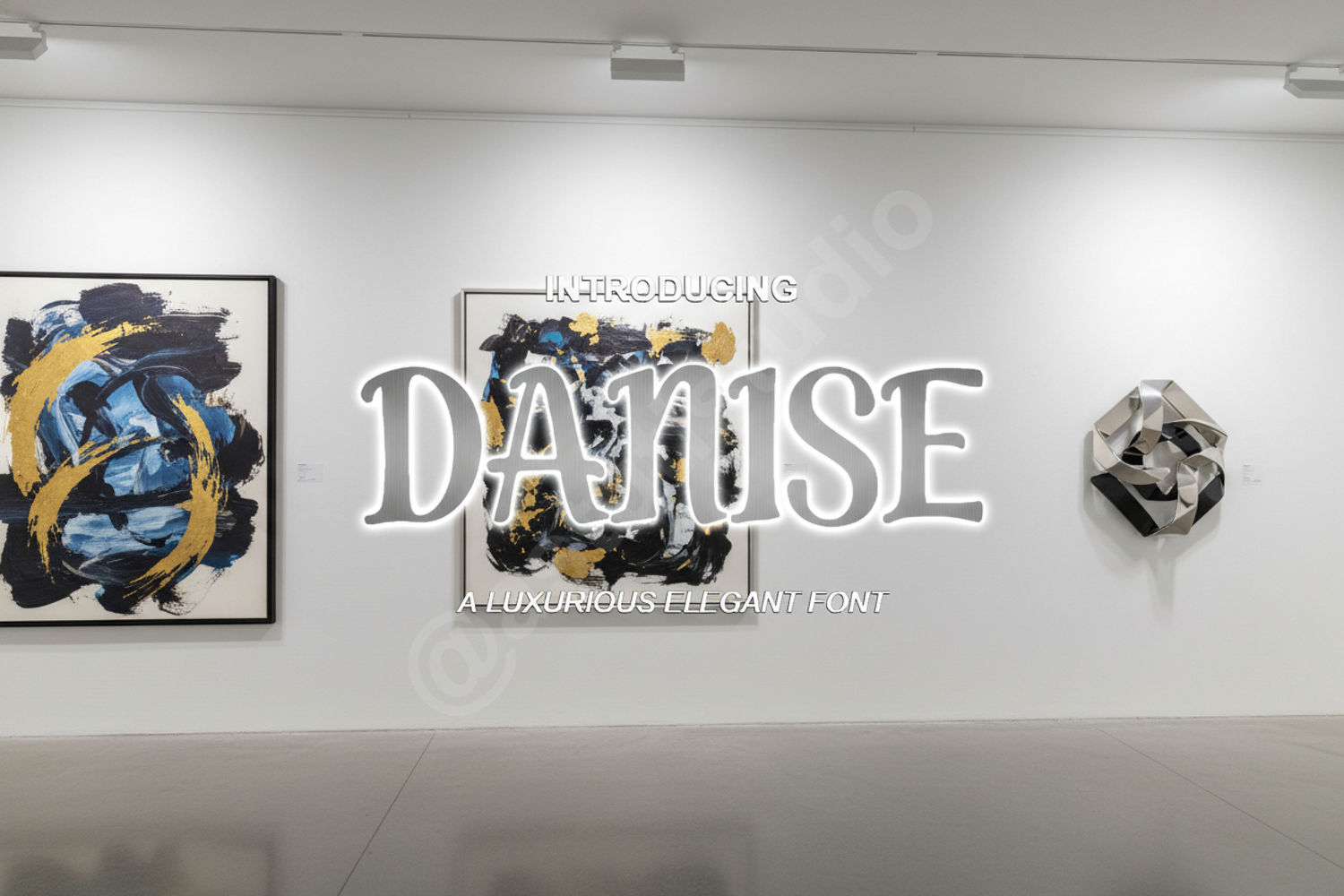
Danise - Sophisticated Modern Serif Typeface
Danise
Danise is a premium serif typeface that exudes elegance and timeless sophistication. Meticulously crafted with high-contrast strokes and refined curves, this font is designed to elevate your creative projects to a professional level. Whether you are working on a luxury brand identity or a minimalist editorial layout, Danise provides the perfect balance of classic charm and modern versatility.
- Standard Ligatures and Alternates
- Comprehensive Multilingual Support
- Premium Branding and Visual Identity
- Wedding Stationery and Invitations
- High-end Editorial and Magazine Layouts
- Professional Logo Design
- Social Media Graphics and Aesthetic Quotes
- Product Packaging and Luxury Labels